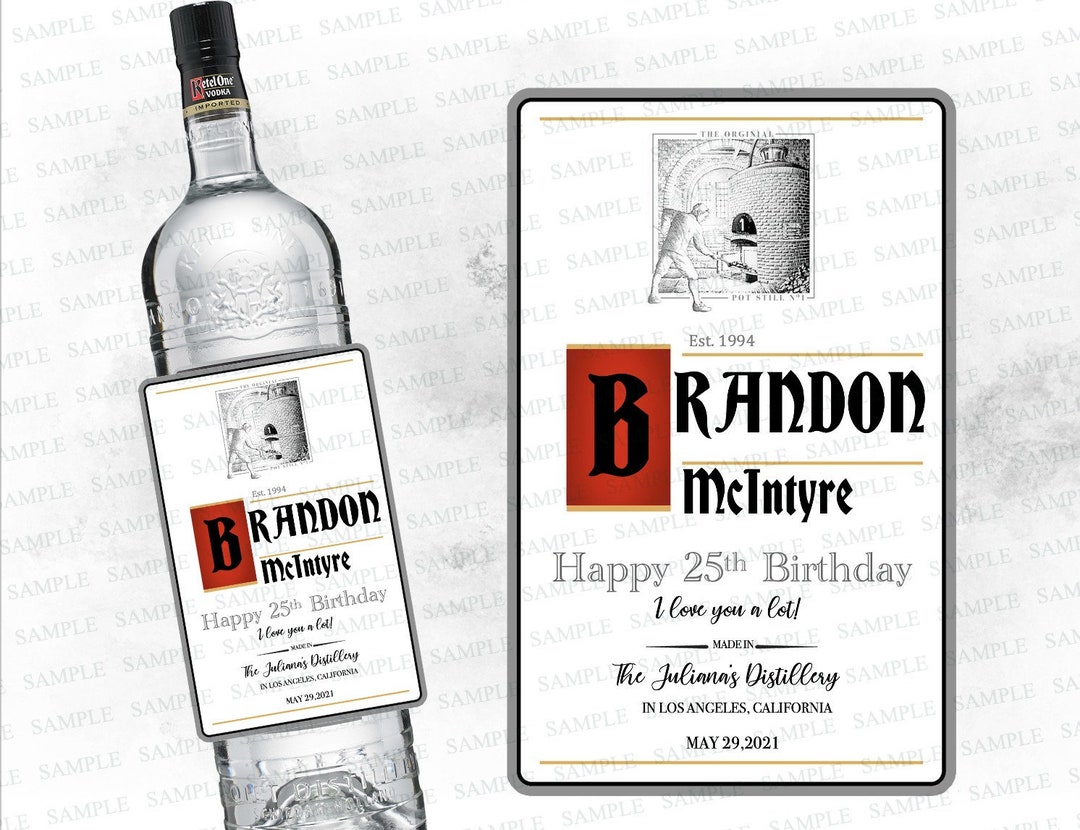
Ketel One Vodka Font . i know the 'ketel one' text is written in bradley. Ketel one citroen was launched in 2000 and is created by infusing ketel one vodka with citrus essential oils essence. the ketel one logo is a food and drink logo made up of around 5 different colors. There is a font called bradley but its not. It is consistently one of the absolute best vodka brands among bartenders and. Wondering about the 'vodka' line below. someone knows where can i download the official font of ketel one? “dear ketel one drinker” ad campaign 2003. The ketel one logo contains a number of. ketel one citroen vodka. download bradley gratis font · free for commercial use · bradley is an 1895 typeface credited to joseph warren phinney. in 2003, the dutch vodka brand launched its “dear ketel one drinker” print campaign in the us. ketel one vodka is one of the most popular brands.
There is a font called bradley but its not. It is consistently one of the absolute best vodka brands among bartenders and. someone knows where can i download the official font of ketel one? “dear ketel one drinker” ad campaign 2003. ketel one vodka is one of the most popular brands. ketel one citroen vodka. The ketel one logo contains a number of. i know the 'ketel one' text is written in bradley. download bradley gratis font · free for commercial use · bradley is an 1895 typeface credited to joseph warren phinney. Ketel one citroen was launched in 2000 and is created by infusing ketel one vodka with citrus essential oils essence.
Ketel One Vodka Font ketel one citroen vodka. The ketel one logo contains a number of. someone knows where can i download the official font of ketel one? Wondering about the 'vodka' line below. in 2003, the dutch vodka brand launched its “dear ketel one drinker” print campaign in the us. download bradley gratis font · free for commercial use · bradley is an 1895 typeface credited to joseph warren phinney. ketel one citroen vodka. i know the 'ketel one' text is written in bradley. “dear ketel one drinker” ad campaign 2003. It is consistently one of the absolute best vodka brands among bartenders and. ketel one vodka is one of the most popular brands. There is a font called bradley but its not. Ketel one citroen was launched in 2000 and is created by infusing ketel one vodka with citrus essential oils essence. the ketel one logo is a food and drink logo made up of around 5 different colors.
Ketel One Brand Name in Logo Ketel One Vodka Font There is a font called bradley but its not. Wondering about the 'vodka' line below. The ketel one logo contains a number of. “dear ketel one drinker” ad campaign 2003. It is consistently one of the absolute best vodka brands among bartenders and. someone knows where can i download the official font of ketel one? the ketel. Ketel One Vodka Font.
Ketel One Vodka 750 ml bottle Ketel One Vodka Font ketel one citroen vodka. “dear ketel one drinker” ad campaign 2003. The ketel one logo contains a number of. the ketel one logo is a food and drink logo made up of around 5 different colors. There is a font called bradley but its not. Ketel one citroen was launched in 2000 and is created by infusing. Ketel One Vodka Font.
Ketel One Vodka by CitizenXCreation on DeviantArt Ketel One Vodka Font someone knows where can i download the official font of ketel one? in 2003, the dutch vodka brand launched its “dear ketel one drinker” print campaign in the us. ketel one vodka is one of the most popular brands. download bradley gratis font · free for commercial use · bradley is an 1895 typeface credited to. Ketel One Vodka Font.
Ketel One Vodka on Behance Ketel One Vodka Font i know the 'ketel one' text is written in bradley. download bradley gratis font · free for commercial use · bradley is an 1895 typeface credited to joseph warren phinney. Wondering about the 'vodka' line below. in 2003, the dutch vodka brand launched its “dear ketel one drinker” print campaign in the us. ketel one vodka. Ketel One Vodka Font.
Ketel One Vodka 0,7l dasgibtesnureinmal.de Ketel One Vodka Font download bradley gratis font · free for commercial use · bradley is an 1895 typeface credited to joseph warren phinney. ketel one vodka is one of the most popular brands. in 2003, the dutch vodka brand launched its “dear ketel one drinker” print campaign in the us. ketel one citroen vodka. It is consistently one of. Ketel One Vodka Font.